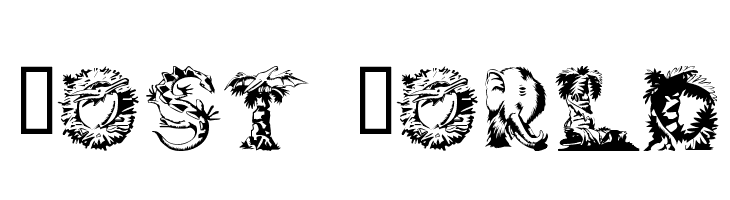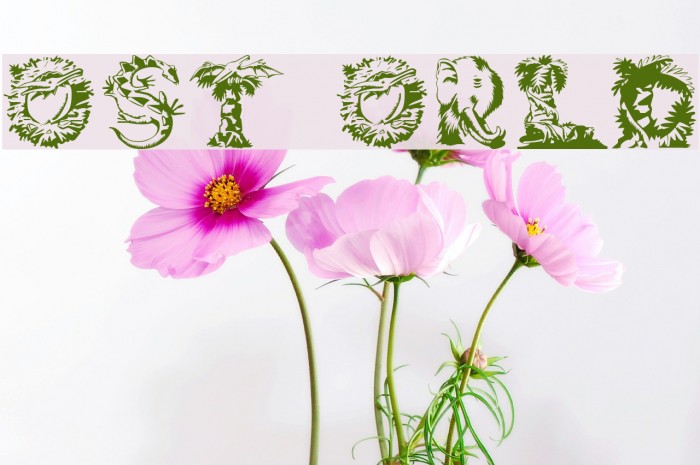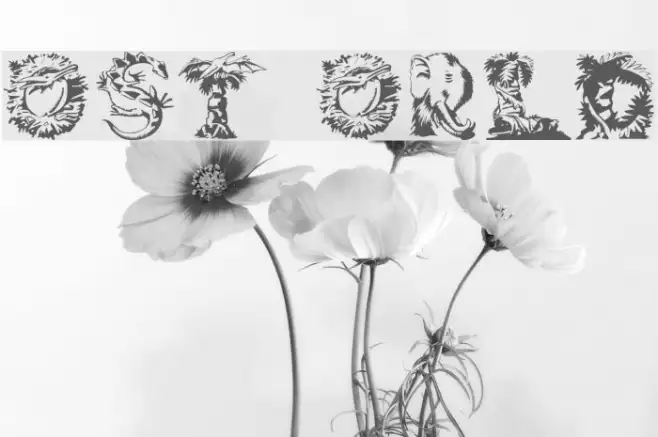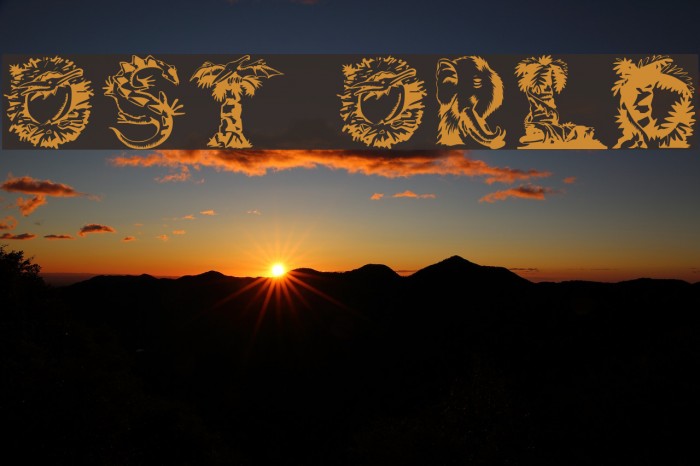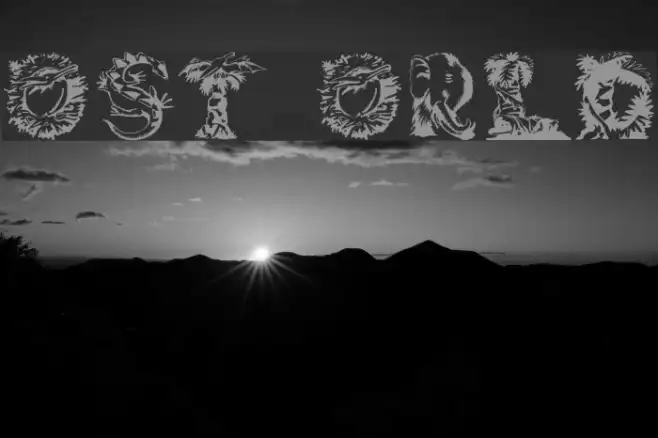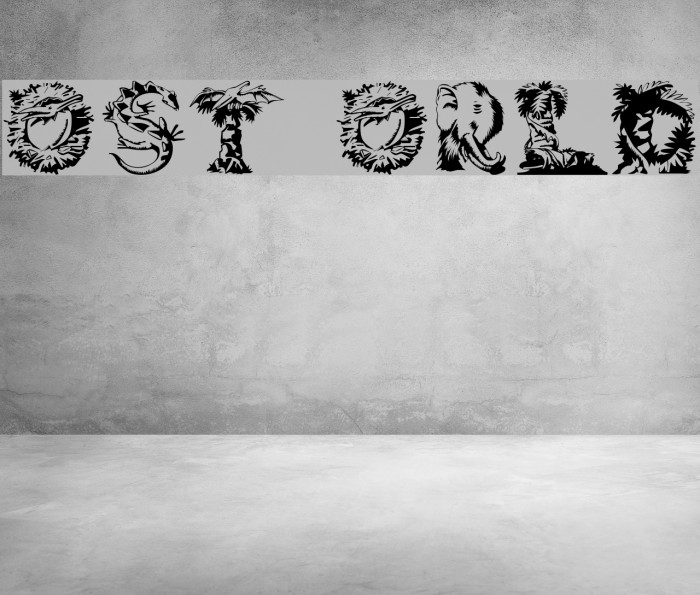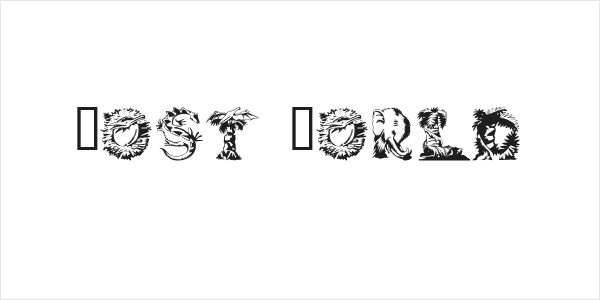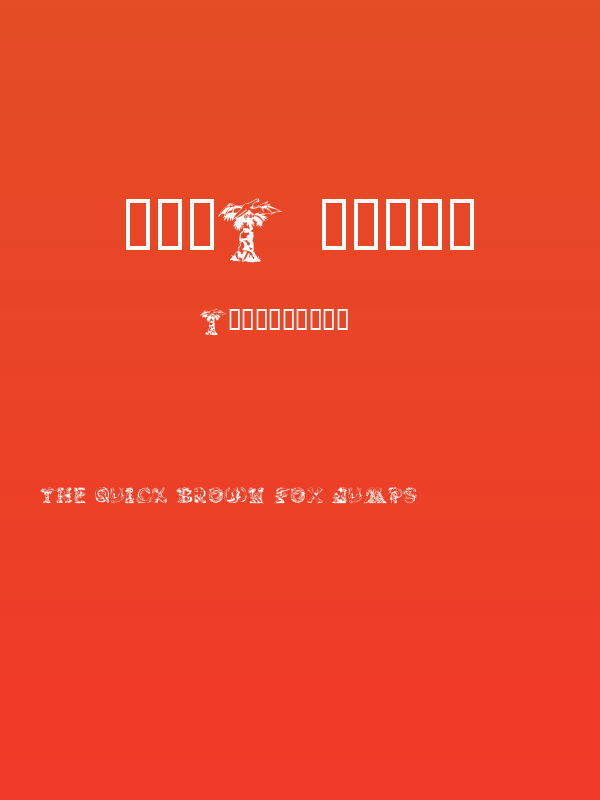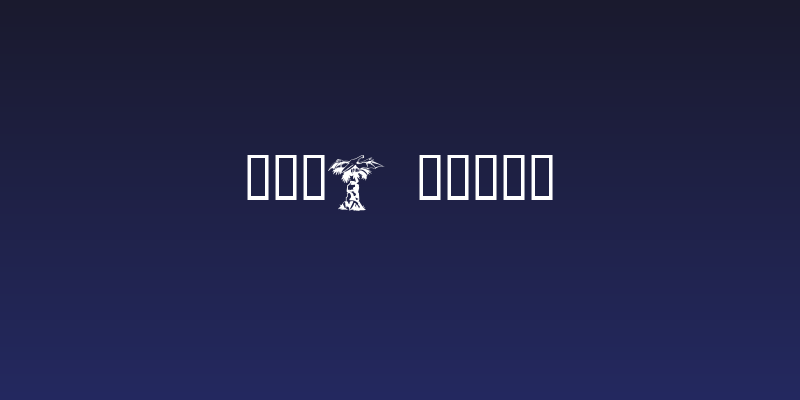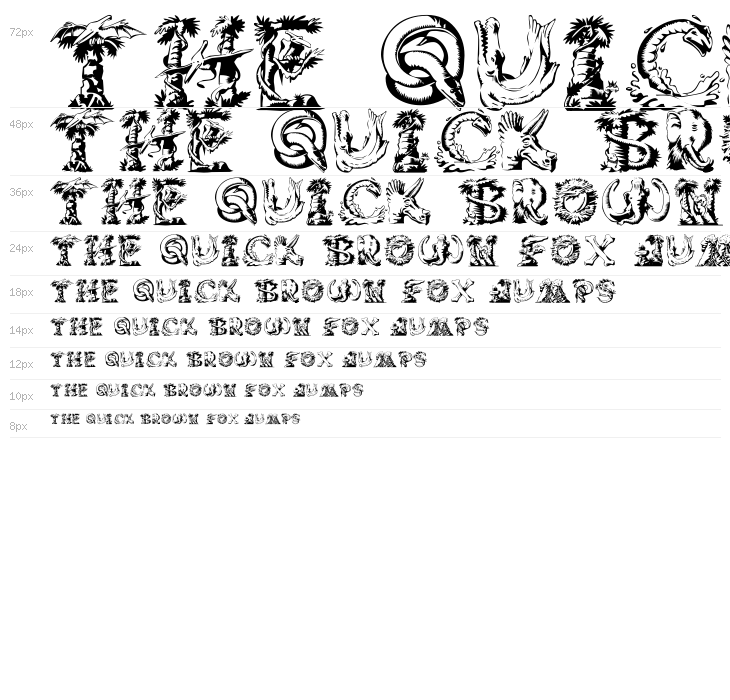
Lost World Font
Lost World Description
This font features a highly decorative and thematic design, reminiscent of a jungle or prehistoric setting. Each letter is intricately crafted with elements that suggest foliage, vines, and rugged textures, creating a sense of adventure and mystery. The uppercase letters are bold and detailed, capturing the essence of a lost world with their unique and imaginative style. The font is ideal for projects that require a strong visual impact and a thematic connection to nature or exploration.
Proposed ProjectsPerfect for adventure-themed posters, book covers, movie titles, and themed event invitations.